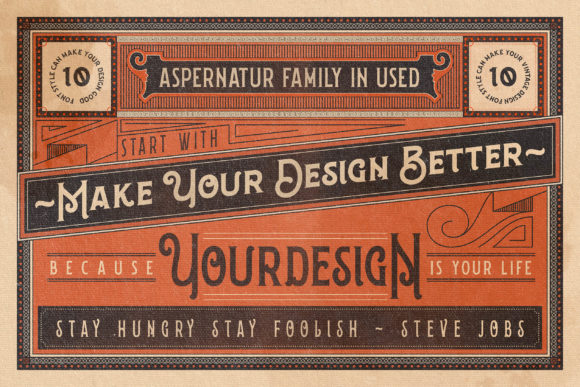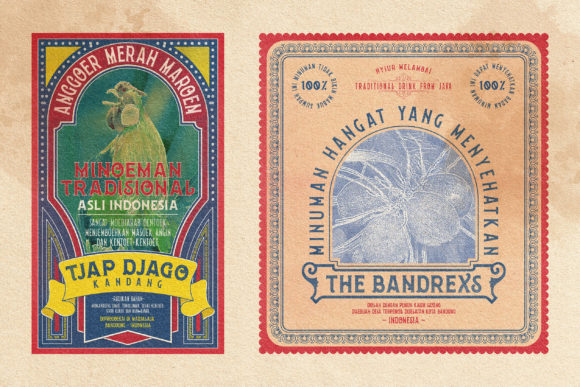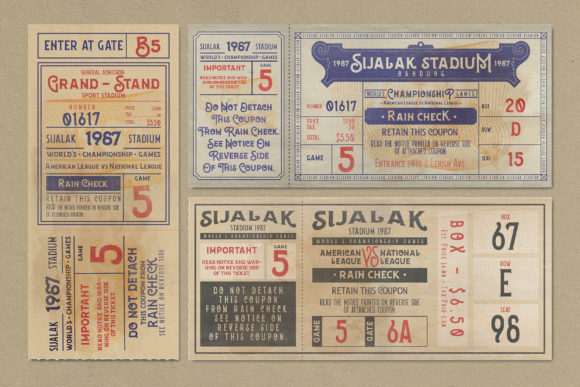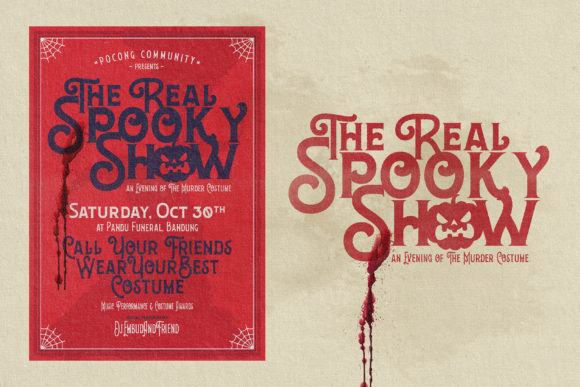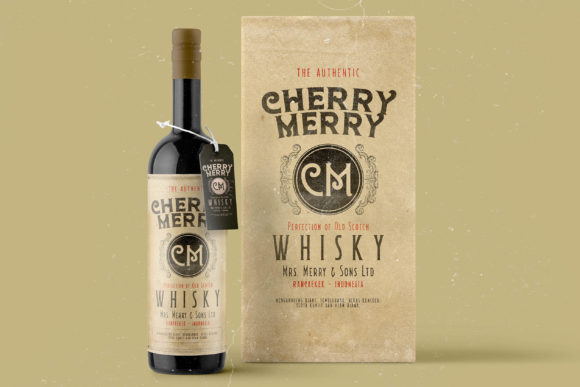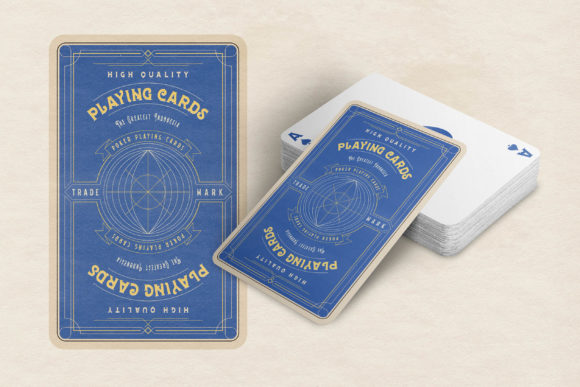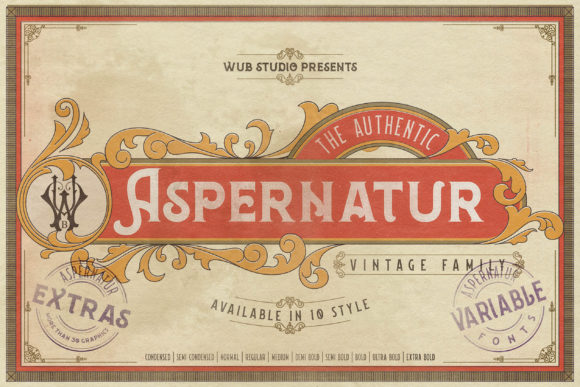
Introducing Aspernatur Font: A Vintage-Styled Powerhouse for Your Designs
In the realm of typography, fonts play a pivotal role in conveying messages, evoking emotions, and setting the tone for any design project. Among the myriad of fonts available, Aspernatur Font stands out as a distinctive, vintage-styled, bold display font that can elevate your designs with its strong, confident, and dynamic presence.
The Essence of Aspernatur Font
Aspernatur is not just another font; it’s a statement maker. Its vintage style is reminiscent of classic typography, yet it carries a boldness and confidence that makes it highly versatile for a wide range of design applications. Whether you’re working on a branding project, a poster, a website, or any digital or print material, Aspernatur can add a significant dose of nostalgic character, making your designs instantly memorable.
Key Features of Aspernatur Font
- Bold and Dynamic: Aspernatur’s bold strokes and dynamic curves make it perfect for headlines, titles, and any place you want to draw attention.
- Vintage Flair: The font carries a nostalgic feel, making it ideal for projects that require a touch of classic elegance or retro vibe.
- Versatile: Despite its bold nature, Aspernatur is surprisingly versatile and can be used across various design projects, from digital interfaces to print materials.
- Easy to Read: Despite its stylized appearance, Aspernatur maintains a high level of readability, ensuring your message is conveyed clearly and effectively.
Who Can Benefit from Aspernatur Font?
Aspernatur Font is a valuable asset for a wide range of designers and crafters, including:
- Graphic Designers: Looking for a font that can make their branding, posters, and flyers stand out.
- Web Designers: Seeking to add a bold, vintage touch to website headers, landing pages, or blog titles.
- Digital Artists and Illustrators: Needing a font that complements their artwork and adds a nostalgic feel.
- Crafters and Makers: Creating custom products, packaging, or promotional materials that require a unique typographic voice.
How to Use Aspernatur Font Effectively
To make the most out of Aspernatur Font, consider the following tips:
- Pair with Simpler Fonts: Use Aspernatur as a headline font and pair it with simpler, more straightforward fonts for body text to create visual hierarchy.
- Experiment with Colors: While bold black is a classic choice, don’t be afraid to experiment with colors that match your brand or project’s aesthetic.
- Adjust Size and Spacing: Play with the font size and spacing to ensure readability and to convey the desired level of emphasis.
Aspernatur Font is a powerful tool in the arsenal of any designer or crafter looking to add a bold, vintage touch to their work. Its unique blend of nostalgia and dynamism makes it an excellent choice for a wide range of projects. By incorporating Aspernatur into your designs, you’re not just choosing a font; you’re making a statement. So, why settle for ordinary when you can make your designs extraordinary with Aspernatur Font?
Embrace the vintage vibe and bold character of Aspernatur Font. Elevate your designs, make them more engaging, and let your creativity shine with this exceptional display font.